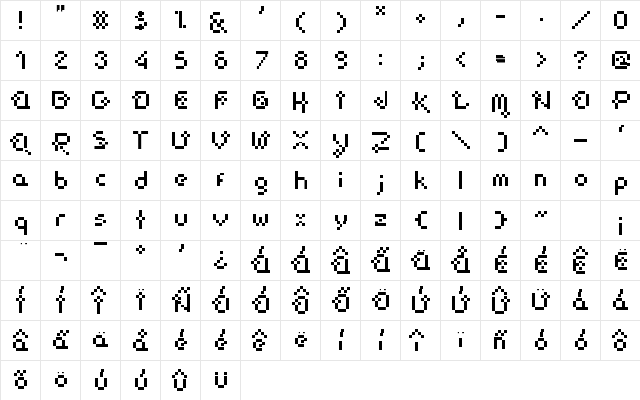
Design Context for Flower-Pixellowzz Typeface
Flower-Pixellowzz is rooted in pixel-grid construction, making it a natural fit for game UI, retro computing aesthetics, and digital nostalgia projects.
Well-suited to indie game interfaces, retro computing aesthetics, and pixel art-adjacent design work.
Pro Tip: Use Flower-Pixellowzz at sizes that align with its pixel grid for the sharpest rendering — scaling to non-integer multiples can introduce unwanted blur.